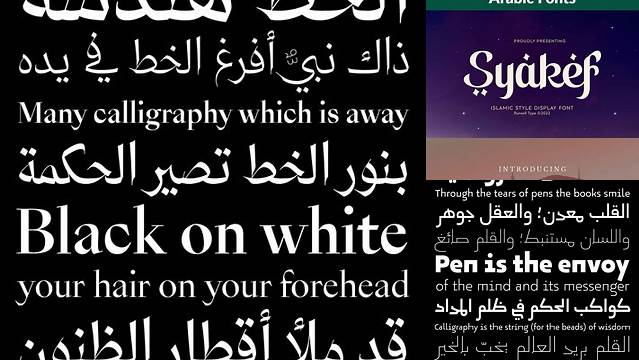
Arabic-Inspired Latin Fonts: Blending Cultures In Design
Hey guys! Ever wondered how different cultures can blend together beautifully, especially in something as subtle yet powerful as typography? We're diving deep into the fascinating world of Arabic-inspired Latin fonts today. These fonts are more than just letters; they're a stunning fusion of two rich traditions, creating unique visual experiences. This exploration will give you a solid understanding of the influences, design principles, and practical applications of these amazing fonts. Ready to get started?
The Allure of Arabic Influence in Latin Typography
Let's get down to business, shall we? Arabic-inspired Latin fonts are basically Latin fonts that draw inspiration from the elegant and flowing forms of Arabic calligraphy. This influence isn't just superficial, it's about capturing the essence of Arabic script and injecting it into the familiar Latin alphabet. What makes this so cool is the cultural exchange. We're talking about blending the structured, geometric forms of Latin letters with the more fluid and expressive strokes of Arabic writing. The goal? To create a harmonious visual language that respects both traditions. This is achieved by borrowing certain elements, like the curves, the connections between letters, and the overall rhythm of Arabic script, and subtly incorporating them into Latin letterforms. The results are fonts that feel fresh, unique, and often carry a sense of exotic elegance. Imagine seeing a headline that feels both familiar and strangely captivating – that's the magic of these fonts at work. These fonts are particularly effective in bridging cultural gaps, creating a visual dialogue that can resonate with diverse audiences. By understanding and appreciating the design principles behind these fonts, we can unlock a whole new level of creative possibilities, especially in branding, editorial design, and even web design. The beauty is in the details. The subtle nods to Arabic calligraphy can transform a simple word into a work of art. This intricate work needs a deep understanding of both Latin and Arabic scripts. So, the designers must carefully consider the balance between legibility and aesthetics. These typefaces are a testament to the power of design to transcend linguistic and cultural boundaries.
Key Characteristics and Design Elements
Alright, let's break down the key features of Arabic-inspired Latin fonts. First up, you'll often see flowing strokes and calligraphic elements. Think of the way Arabic letters gracefully connect and extend. Designers take these flowing lines and integrate them into Latin letters. This can manifest in swashes (decorative flourishes) or in the way letters are linked together. Then there's the use of curves and rounded forms, a stark contrast to the more rigid lines found in many standard Latin fonts. Arabic calligraphy is known for its beautiful curves and loops, and these elements are often incorporated to soften the appearance of Latin letters and add a touch of elegance. You might also find a focus on rhythm and balance. Arabic script has a distinct rhythm due to the varying thicknesses and the way letters connect. Designers try to mimic this by varying the weight of the strokes in Latin letters, creating a visual flow that is pleasing to the eye. We can't forget about ornamentation. Sometimes, designers will add subtle decorative elements inspired by Arabic art, such as small dots, serifs, or other embellishments. The choice of weight and style also play a big part. You'll find both heavier, bolder fonts that grab your attention, and lighter, more delicate ones for a more subtle touch. The best part? These fonts are designed with the practical aspects of readability in mind. They must be beautiful but also functional. So, the designers make sure that these fonts are easy to read even when they are used for body text. If it’s not, they're missing the point, right?
Historical Context and Cultural Significance
Now, let's talk about the history and cultural significance of these fonts. The blend of Latin and Arabic influences isn't just a modern trend; it has roots in the historical interactions between the Western and Arab worlds. During the medieval period, there was a lot of cultural exchange. Trade, academic endeavors, and artistic collaborations led to a mutual appreciation of each other's cultures. This led to the creation of hybrid art forms, and typography was no exception. The development of these fonts reflects a broader trend of cross-cultural pollination. It's a visual representation of the dialogue that's been ongoing between different civilizations for centuries. The cultural significance is huge. These fonts can be a powerful symbol of unity and understanding. They represent a willingness to embrace diversity and celebrate the beauty of different cultures. In a world that is increasingly interconnected, this sort of visual harmony is super important. Using these fonts can send a message of inclusivity, which is a good thing. The use of Arabic-inspired Latin fonts in design is also about challenging traditional norms and pushing creative boundaries. It allows designers to experiment with new forms and concepts, opening up new avenues for artistic expression. We're talking about a legacy of cultural exchange that continues to inspire and evolve.
Famous Examples and Designers
Here's a little shoutout to some of the awesome fonts and designers in this space! Some popular examples include fonts that blend traditional Arabic calligraphic styles with the modern Latin alphabet. A lot of the designers have a strong background in both Arabic calligraphy and Latin typography, allowing them to create authentic and impactful designs. They deeply understand the nuances of both scripts. They skillfully integrate Arabic design elements, such as flowing strokes and ornate details, into the Latin letterforms. This creates a cohesive look that captures the spirit of both cultures. Their expertise and dedication have made it possible for these fonts to become so popular. These fonts have been successfully used in various fields, including branding, editorial design, and website design, demonstrating their versatility and wide appeal. Some famous designers and foundries have a reputation for creating high-quality, culturally sensitive fonts. Their work not only looks great but also conveys a sense of respect for both traditions. The goal is to create beautiful, functional, and culturally relevant fonts.
Practical Applications of Arabic-Inspired Latin Fonts
Alright, let's talk about where you'll actually see these fonts in action. First off, branding and logo design are prime spots for these fonts. Think about companies that want to project a global or cross-cultural image. These fonts can add a unique visual flair that stands out from the crowd. Editorial design is another great place. Using these fonts in headlines or pull quotes can make a magazine or book layout look sophisticated. The way it will add an element of exotic elegance that grabs the reader's attention is crazy. Website design is a very important area of application. They can be used for headings, navigation elements, or even body text, especially on websites that aim to have an international audience. They're particularly effective in the Middle East and North Africa, where the fonts can resonate with local cultures and attract users. Beyond these, they're making appearances in packaging, advertising, and even art installations. The creative uses are endless. If you are a designer, you should definitely start experimenting with these fonts. By integrating these fonts into your design projects, you can infuse your designs with a unique visual language. These fonts are perfect for capturing attention and expressing sophistication. So next time you start on a project, think about using these fonts!
Tips for Choosing and Using These Fonts Effectively
Okay, so you want to use Arabic-inspired Latin fonts, right? First off, you should keep legibility in mind. While these fonts look amazing, they have to be easy to read. Make sure your chosen font is readable, especially at the size it will be used. Consider the context! Think about the message you are trying to convey. Does the font style align with your brand's personality or the project's theme? Test the font to see how it looks in different sizes, weights, and colors. This is critical to make sure it works well in a range of situations. Be mindful of cultural sensitivity. Ensure that the font is respectful of both Latin and Arabic traditions. Don't be afraid to play around and experiment! Try different combinations of fonts to see what works best. It's okay to mix different styles as long as you maintain visual consistency. Also, consider the overall layout. How does the font interact with other elements in the design? Make sure there is enough contrast between the font and the background. Consider the emotional impact of the font. Does it convey the mood and tone you want to achieve? Research and choose a font that reflects your vision and resonates with your target audience. Be prepared to go the extra mile to get the best result!
The Future of Fusion: Trends and Innovations
So, what does the future hold for Arabic-inspired Latin fonts? We can anticipate more experimentation with the cross-pollination of scripts. Designers will likely continue to push the boundaries, exploring new forms and styles. This will lead to more innovative and creative designs. We'll see a greater emphasis on cultural sensitivity and inclusivity. Designers will need to create fonts that are both beautiful and respectful of the cultural heritage they represent. Technological advancements will change how these fonts are created and used. Expect to see more dynamic and responsive fonts that can adapt to different screen sizes and devices. This means designers will need to be creative. This allows for better legibility and accessibility across a variety of platforms. Also, we can expect to see more collaborations between designers from different cultural backgrounds. This will lead to new ideas and perspectives, and ultimately to more interesting and diverse fonts. The goal is to create fonts that bridge cultures and inspire visual harmony.
Emerging Trends in Typography
Let's get into some of the latest trends. First up, we're seeing a rise in the use of variable fonts. This means you can change the weight, width, and other attributes of the font. This gives designers more flexibility and creative control. Next, we're seeing a focus on the accessibility of fonts. Designers are making sure their fonts are easy to read for everyone, including people with visual impairments. There is also a growing trend toward custom fonts. Businesses and brands are commissioning their own unique fonts to stand out from the competition. These are often specifically designed to capture the personality of the brand. Another trend is the use of generative design. This involves using algorithms to create new and unique font designs. Finally, there is a growing interest in font-as-a-service (FAAS). This means you can access a library of fonts through a subscription, which gives designers more flexibility and cost-effectiveness. All in all, the future of typography is super exciting. We have a lot to look forward to, right?
Alright, let's wrap this up, guys! Arabic-inspired Latin fonts are a great example of how cultures can come together to create something beautiful and functional. They represent the power of design to bridge cultural divides and inspire new ideas. Hopefully, you now have a better understanding of their history, design elements, and practical applications. Whether you're a designer looking to add a unique touch to your projects or you're just curious about the world of typography, these fonts are definitely worth exploring. Feel free to experiment with different styles and combinations. Happy designing!